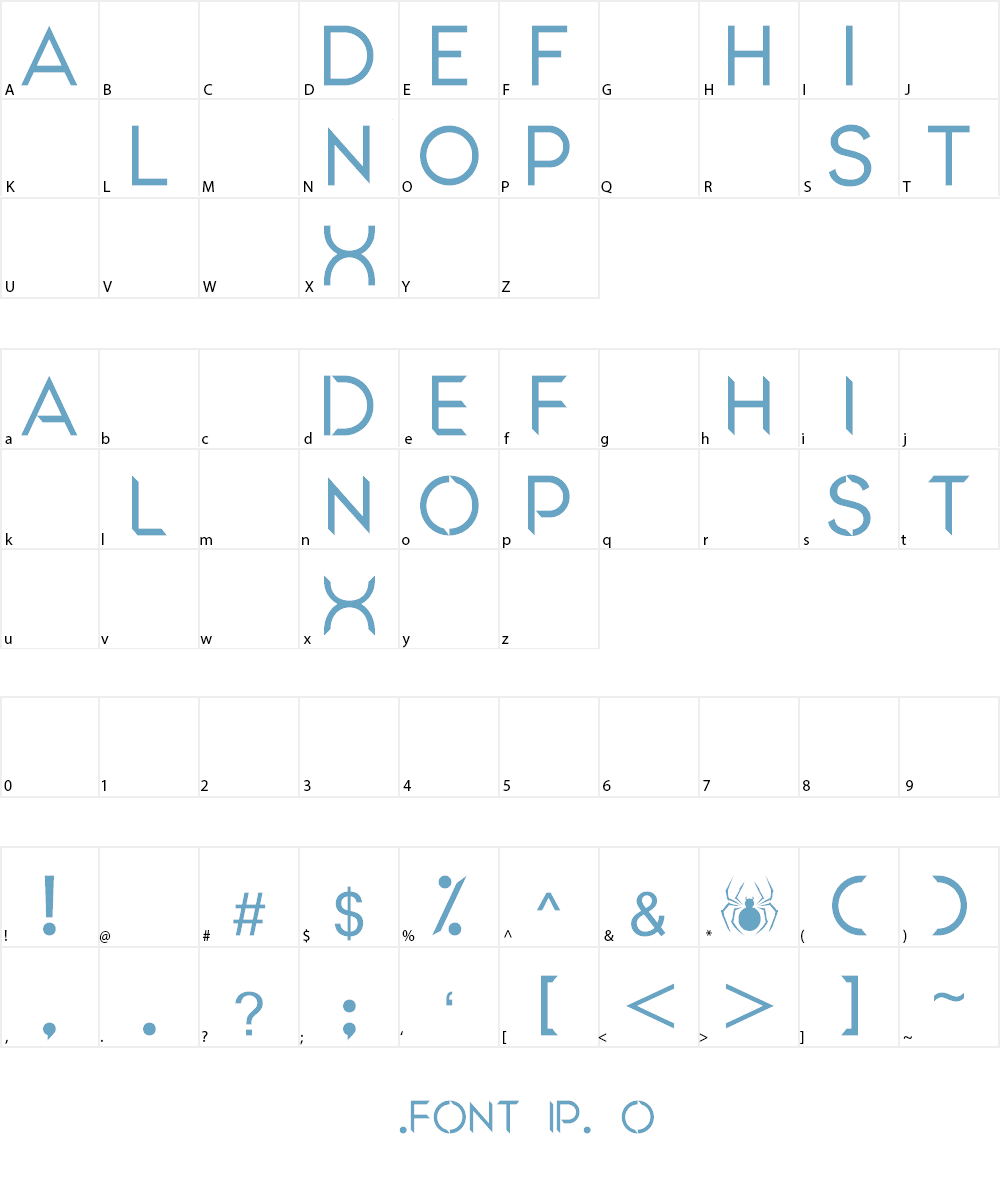
I created this fan-font based on the on the new Science Fiction movie about an expedition into an environmental disaster area the font has similar narrow stems corner angled glyphs, corner cut-outs and rounded edges.